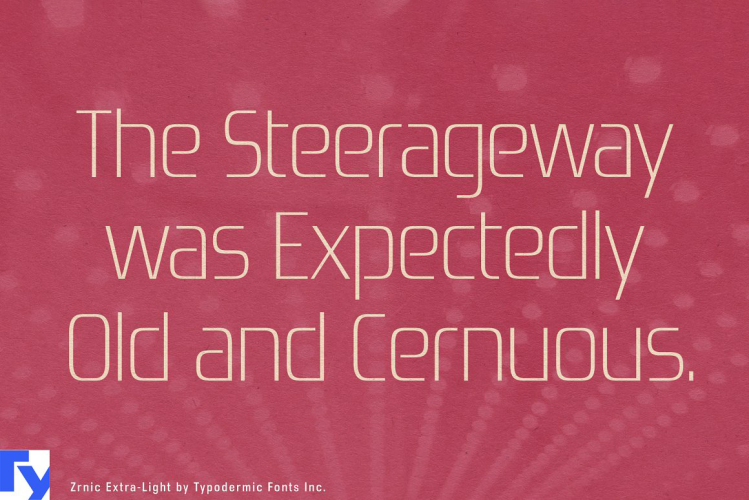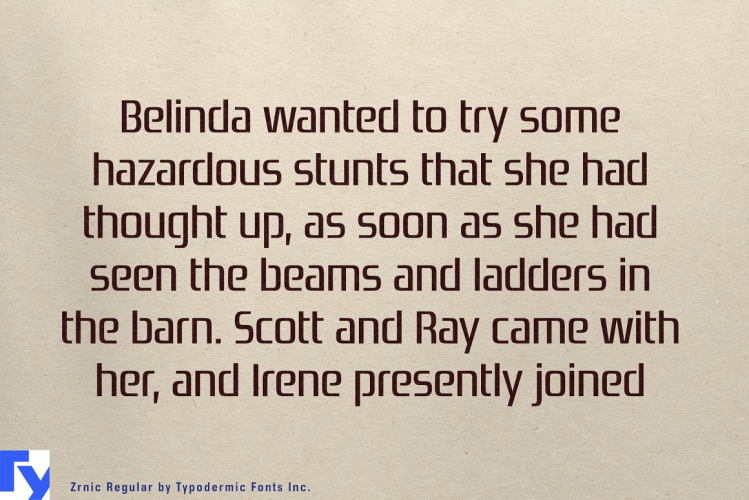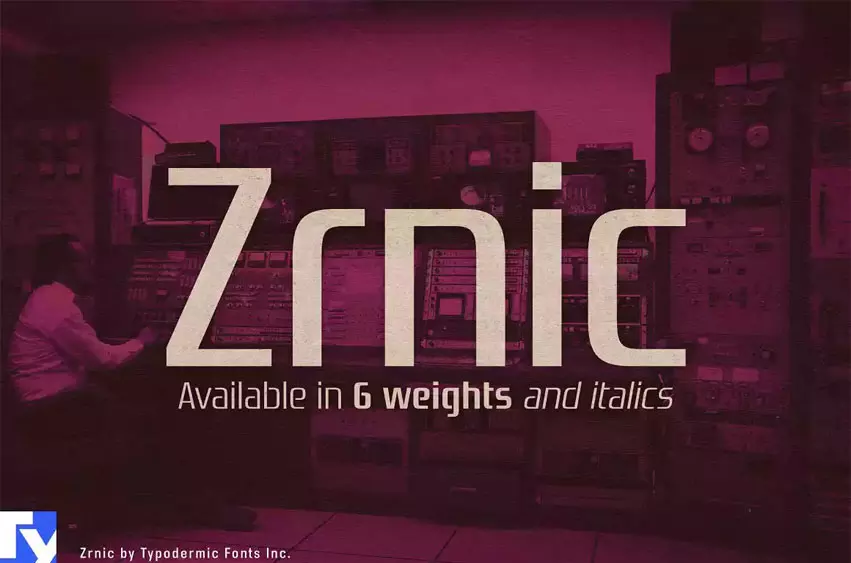
Zrnic Font
Zrnic Font: Looking for a typeface that perfectly captures the essence of industrial precision and futuristic design? Look no further than Zrnic. With its unique blend of boxy, plastic letterforms and strategically placed gaps, Zrnic delivers a stark, high-tech look that is perfect for conveying your message with clarity and impact.
Zrnic’s six weights and italics give you a range of options, allowing you to fine-tune the look and feel of your designs to perfectly match your needs. Whether you’re creating technical documentation, product manuals, or other materials that require a precise, professional look, Zrnic has you covered.
With Zrnic, you don’t have to worry about your message getting lost in the noise. Our unique design makes your text stand out with crystal-clear precision, ensuring your audience can quickly and easily understand your message.
Zrnic’s gaps are strategically placed to reduce overall weight, giving you a clean, minimalistic look that is perfect for modern designs. These gaps also increase impact, allowing your text to stand out and capture your audience’s attention.
Zrnic is the ultimate tool for designers who want to convey the notion of technological precision with their designs. With its high-tech, industrial look and range of weights and italics, Zrnic is the perfect choice for technical documentation, product manuals, and other materials that demand a precise, professional look.
Where Zrnic Font works best
Zrnic Font stays legible at small sizes, which makes it a strong choice for navigation, buttons and dashboards in web design and app interfaces.
Clean sans serifs like Zrnic Font are the default language of SaaS, fintech and product branding.